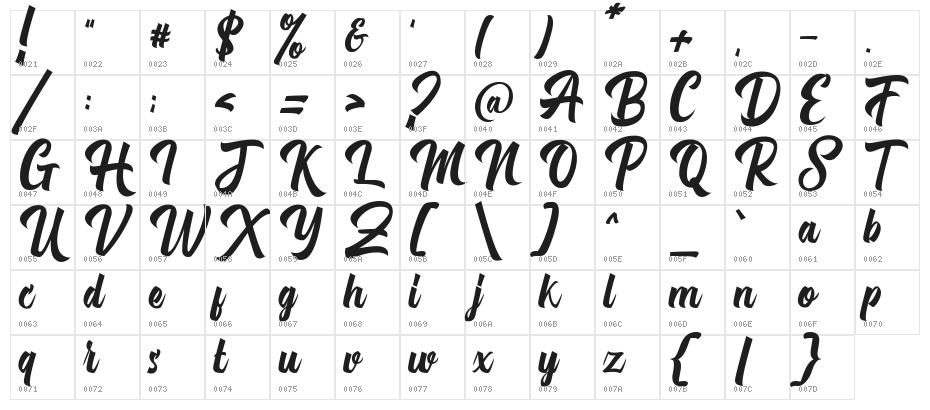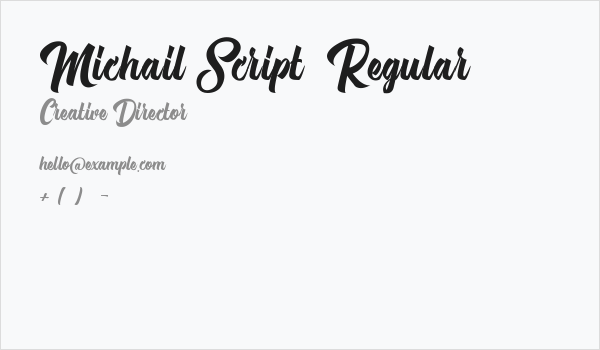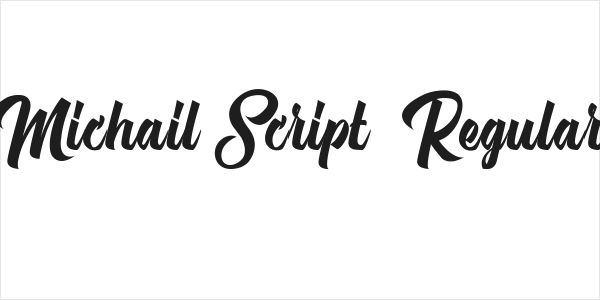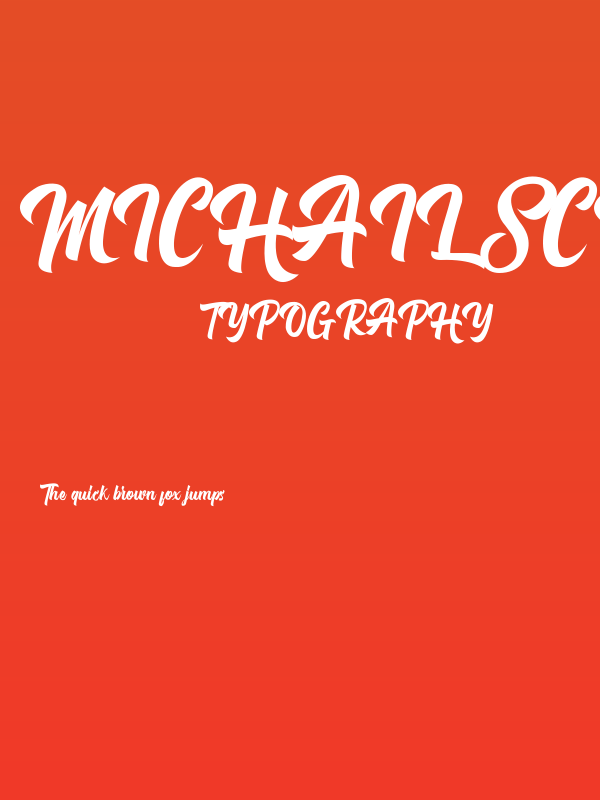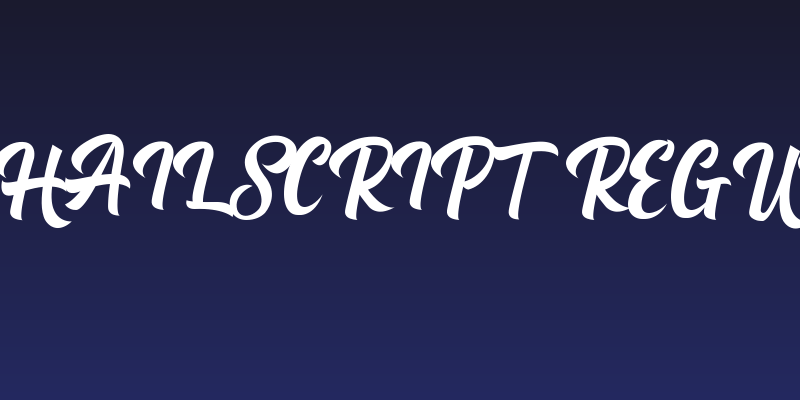
Michail Script Regular Font
Michail Script Regular Description
This script font exudes a dynamic and flowing style, characterized by its bold and expressive strokes. The letters are connected in a fluid manner, creating a sense of movement and elegance. The uppercase letters are slightly more ornate, with sweeping curves and flourishes, while the lowercase letters maintain a consistent rhythm and balance. The font's bold weight and high contrast between thick and thin strokes enhance its readability and visual impact. It is well-suited for creative and artistic projects that require a touch of sophistication and flair.
| Proposed Projects | Ideal for wedding invitations, branding, logo design, and artistic posters. |